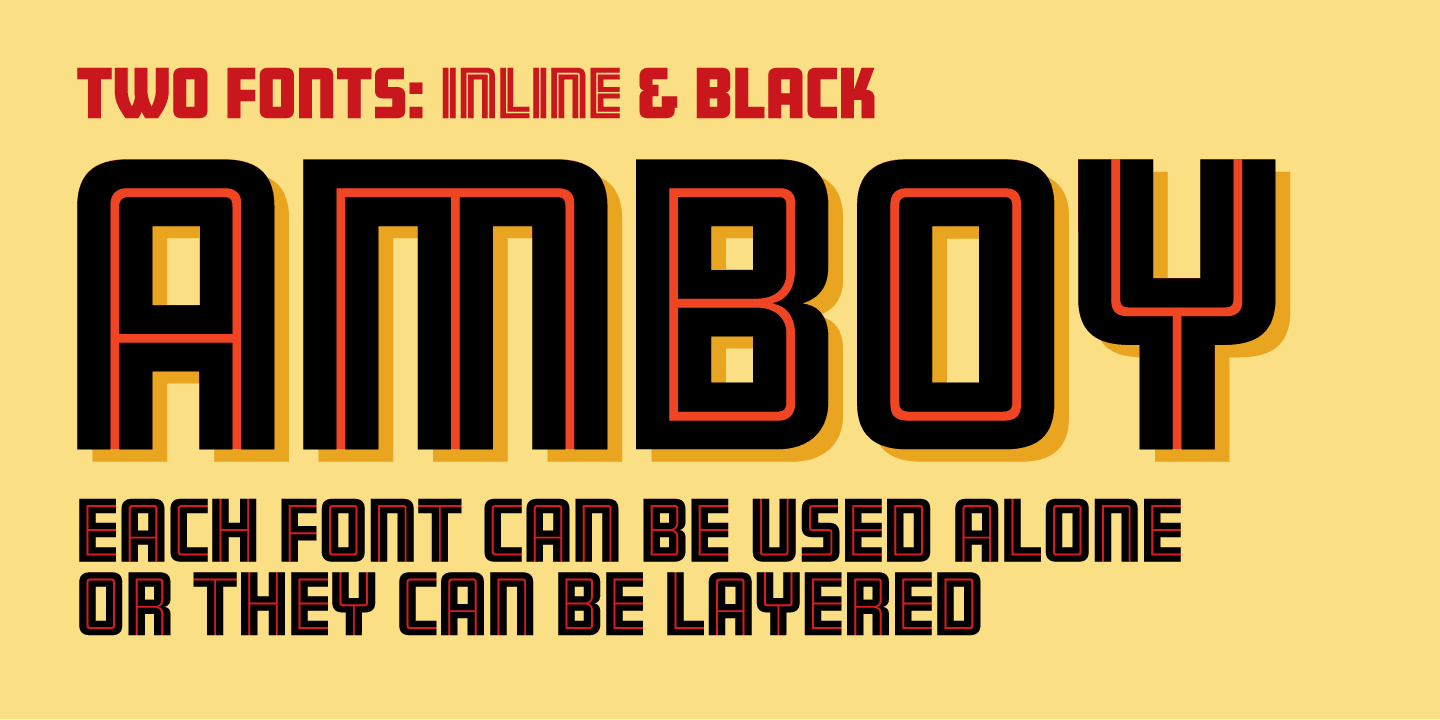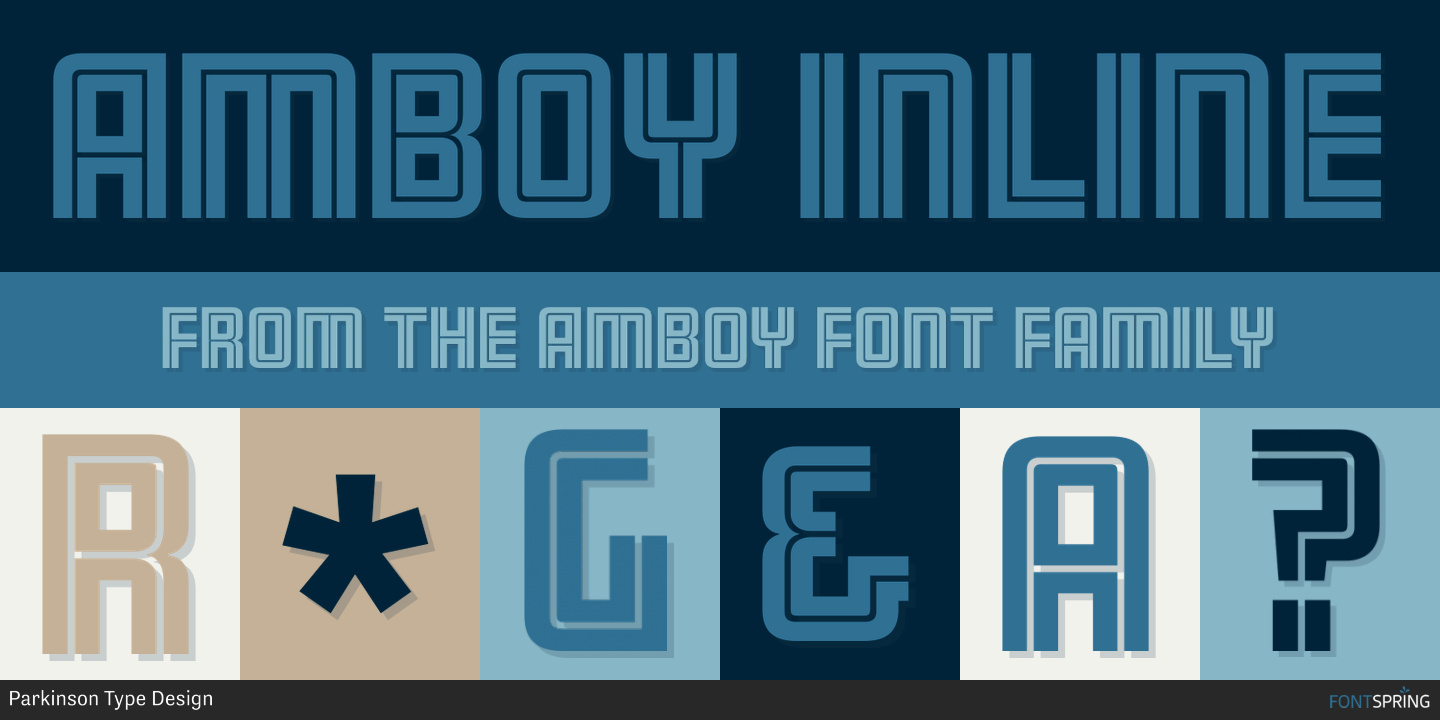
Amboy Black Font - A decorative typeface with 2. Amboy black is a recent addition. Bold, geometric, and blocky font with strong. Amboy font family series mainly provide roman,regular and other font styles. Amboy black by parkinson type design bold,. Explore amboy designed by jim parkinson at adobe fonts. Amboy inline and amboy black.
Amboy inline and amboy black. Amboy black by parkinson type design bold,. Explore amboy designed by jim parkinson at adobe fonts. Bold, geometric, and blocky font with strong. Amboy black is a recent addition. Amboy font family series mainly provide roman,regular and other font styles. A decorative typeface with 2.
Explore amboy designed by jim parkinson at adobe fonts. Amboy black by parkinson type design bold,. Bold, geometric, and blocky font with strong. Amboy black is a recent addition. Amboy inline and amboy black. Amboy font family series mainly provide roman,regular and other font styles. A decorative typeface with 2.
Explore amboy designed by jim parkinson at adobe fonts. Amboy font family series mainly provide roman,regular and other font styles. Amboy black is a recent addition. Amboy inline and amboy black. Amboy black by parkinson type design bold,.
Amboy font family series mainly provide roman,regular and other font styles. Amboy black by parkinson type design bold,. A decorative typeface with 2. Amboy inline and amboy black. Amboy black is a recent addition.
Amboy black by parkinson type design bold,. Bold, geometric, and blocky font with strong. Explore amboy designed by jim parkinson at adobe fonts. Amboy font family series mainly provide roman,regular and other font styles. Amboy inline and amboy black.
Bold, geometric, and blocky font with strong. Amboy black by parkinson type design bold,. Explore amboy designed by jim parkinson at adobe fonts. A decorative typeface with 2. Amboy inline and amboy black.
Amboy Font
Amboy inline and amboy black. Explore amboy designed by jim parkinson at adobe fonts. Amboy font family series mainly provide roman,regular and other font styles. Amboy black is a recent addition. Amboy black by parkinson type design bold,.
Amboy black by parkinson type design bold,. Amboy black is a recent addition. Bold, geometric, and blocky font with strong. Amboy font family series mainly provide roman,regular and other font styles. Amboy inline and amboy black.
Amboy black by parkinson type design bold,. Amboy font family series mainly provide roman,regular and other font styles. A decorative typeface with 2. Explore amboy designed by jim parkinson at adobe fonts. Amboy inline and amboy black.
Amboy inline and amboy black. Amboy font family series mainly provide roman,regular and other font styles. Amboy black is a recent addition. Explore amboy designed by jim parkinson at adobe fonts. Amboy black by parkinson type design bold,.
Amboy black by parkinson type design bold,. Amboy black is a recent addition. Amboy inline and amboy black. A decorative typeface with 2. Bold, geometric, and blocky font with strong.
Amboy Black By Parkinson Type Design Bold,.
Explore amboy designed by jim parkinson at adobe fonts. Amboy inline and amboy black. Bold, geometric, and blocky font with strong. Amboy font family series mainly provide roman,regular and other font styles.
A Decorative Typeface With 2.
Amboy black is a recent addition.